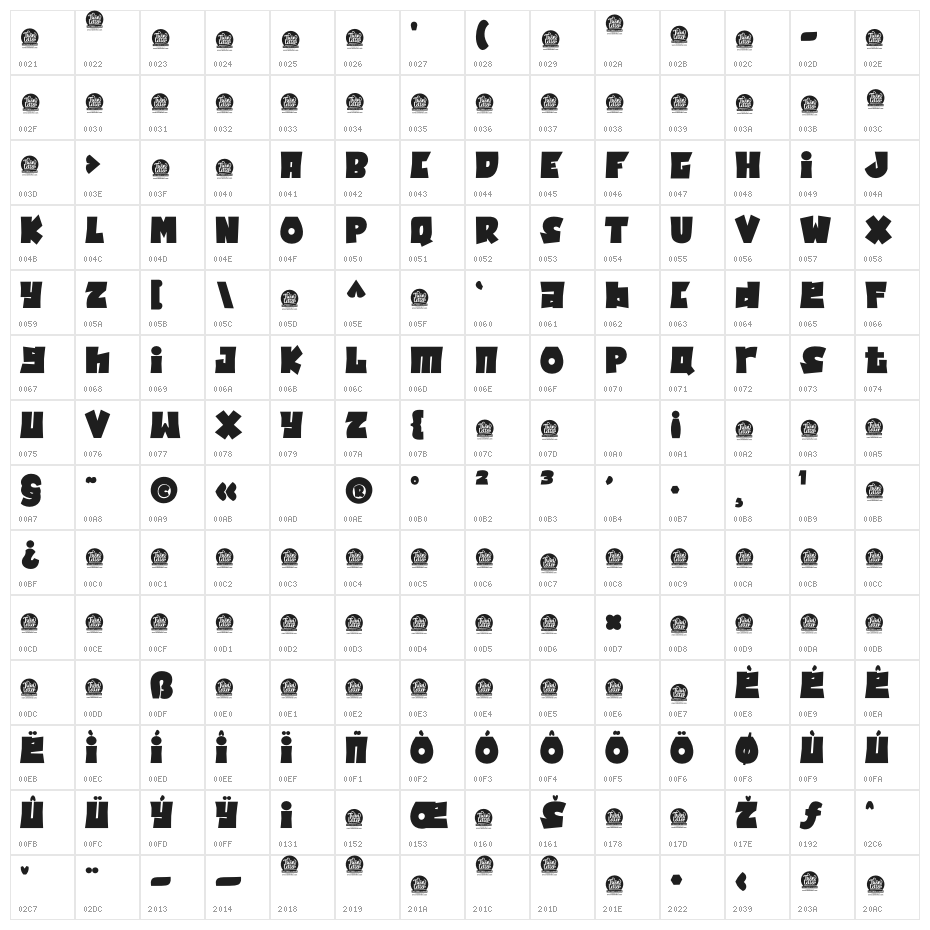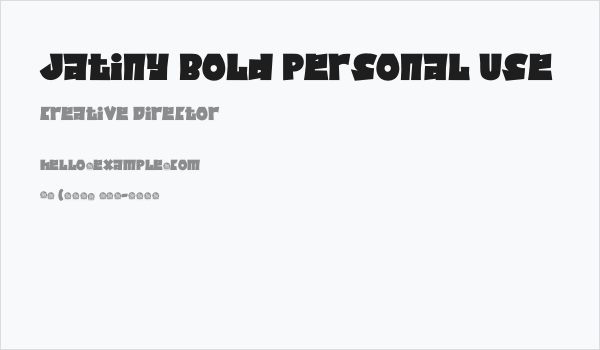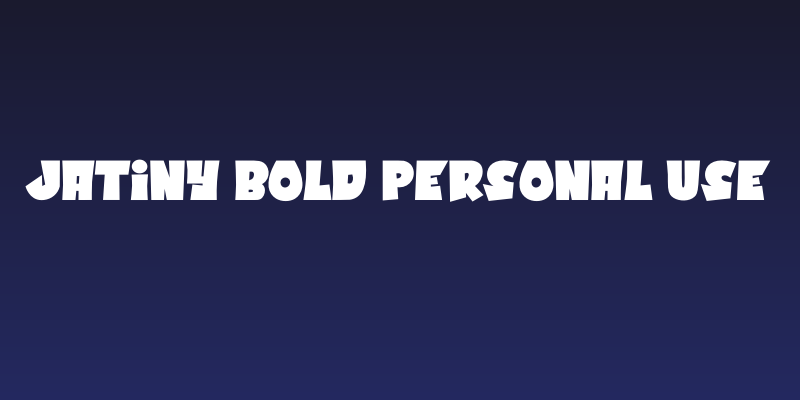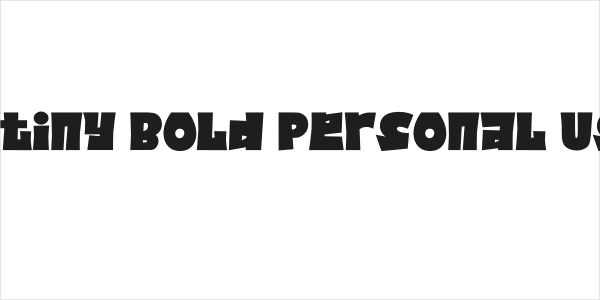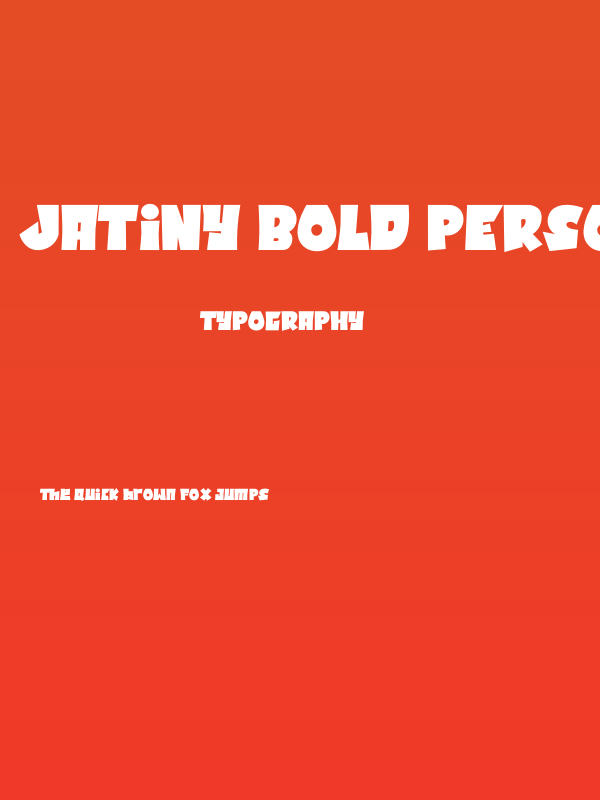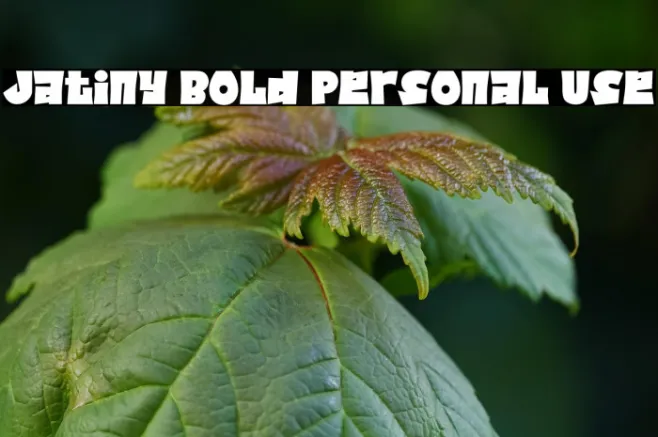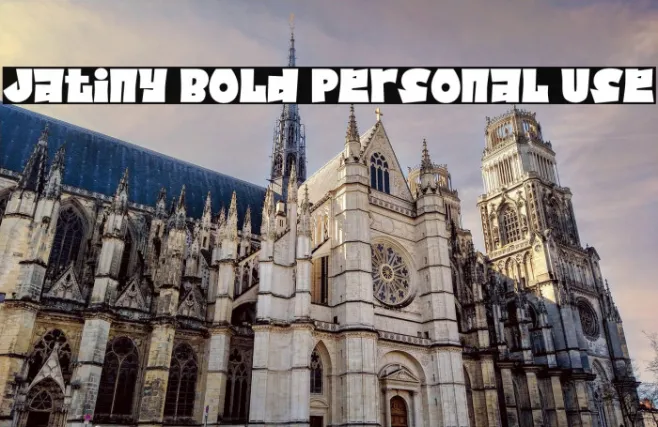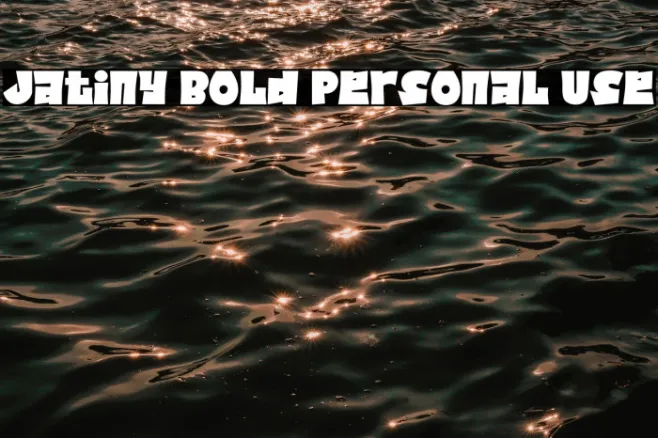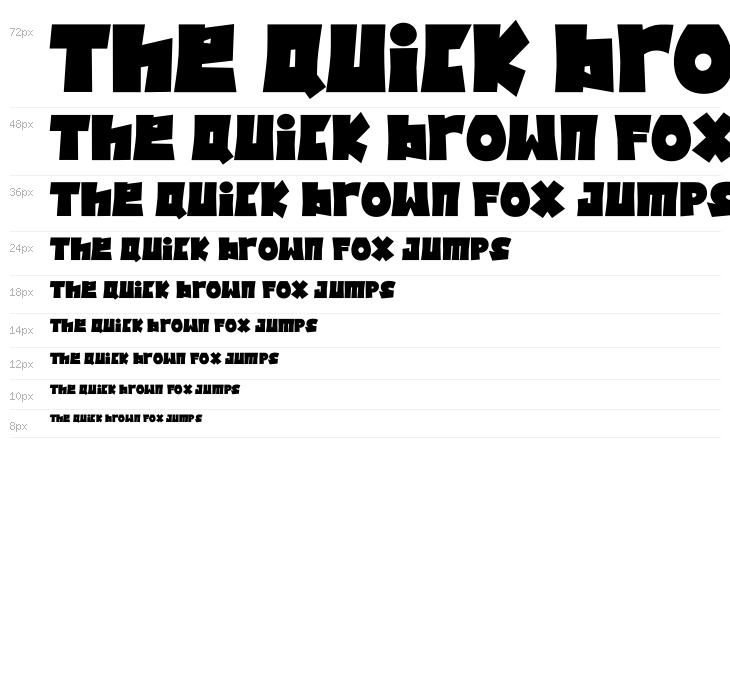
Jatiny Bold Personal Use Font
Jatiny Bold Personal Use Description
This bold and dynamic font features a unique, geometric design with sharp angles and thick strokes. The uppercase and lowercase letters maintain a consistent style, emphasizing boldness and creativity. The characters are wide and have a strong presence, making them ideal for attention-grabbing headlines or logos. The numbers and special characters follow the same bold and angular design, ensuring uniformity across all text elements. This font's distinct style makes it perfect for projects that require a modern and edgy look.
| Proposed Projects | This font is well-suited for branding, poster design, album covers, and any project that requires a bold, modern aesthetic. |